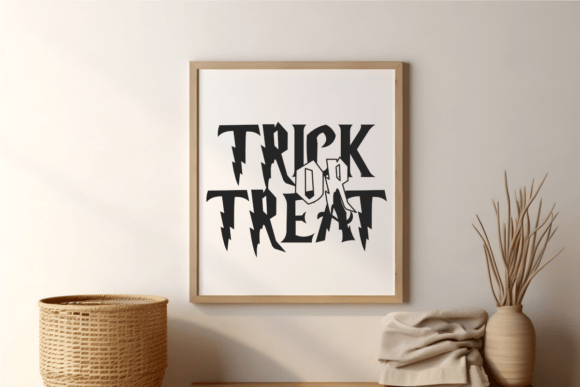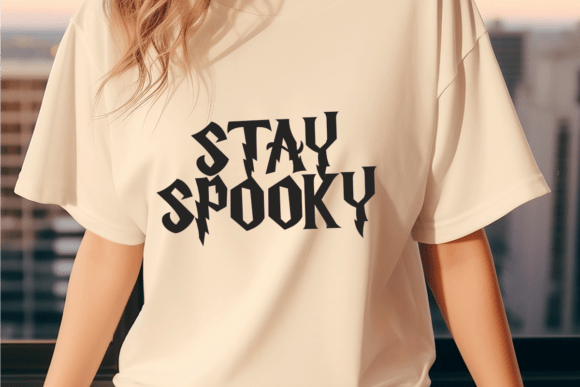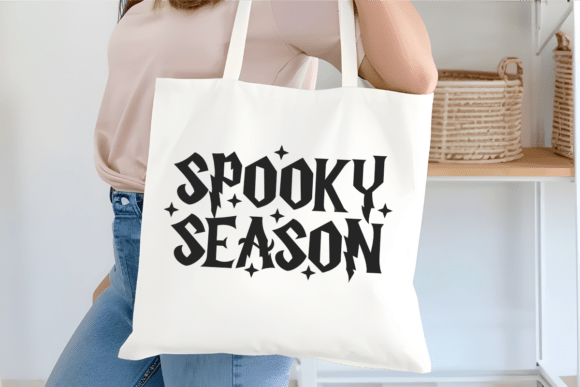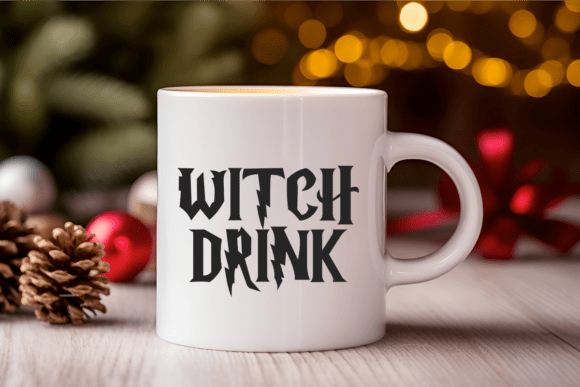
Harry Poster Regular Font: The Ultimate Spooky Halloween Font
Are you looking for a font that captures the essence of Halloween and adds a touch of spookiness to your designs? Look no further than the Harry Poster Regular Font. Inspired by metal band typography and classic horror posters, this font is perfect for designers and crafters who want to create eerie and mystical designs that will leave a lasting impression.
What Makes Harry Poster Unique?
Harry Poster is a unique and bold font that stands out from the rest. Its sharp edges and eerie character give it a distinctive look that is reminiscent of classic horror movies and metal band logos. The font’s design is inspired by the darker side of life, making it perfect for Halloween-themed designs, horror-inspired projects, and dark fantasy branding.
Perfect for Seasonal and Mystical Designs
Harry Poster is ideal for designers and crafters who want to create seasonal and mystical designs that capture the spirit of Halloween. The font’s spooky and eerie character makes it perfect for:
- Halloween party invitations
- Stickers and wall art
- Apparel, hoodies, and print-on-demand products
- Cricut and cutting machine projects
- Labels and logos
- Posters and keychains
Ideal for Dark Fantasy Branding and Horror-Inspired Projects
Harry Poster is not just limited to Halloween-themed designs. The font’s bold and atmospheric look makes it perfect for dark fantasy branding and horror-inspired projects, such as:
- Book covers
- Film titles
- Dark fantasy branding
- Horror-inspired art and designs
Why Choose Harry Poster?
There are many reasons why Harry Poster is the perfect font for designers and crafters. Here are just a few:
- Unique and bold design: Harry Poster has a distinctive look that sets it apart from other fonts.
- Eerie and mystical character: The font’s spooky character makes it perfect for Halloween-themed designs and horror-inspired projects.
- Versatile: Harry Poster can be used for a wide range of projects, from stickers and wall art to book covers and film titles.
Tips for Using Harry Poster
Here are a few tips for using Harry Poster to get the most out of this amazing font:
- Experiment with different colors: Harry Poster looks great in bold and bright colors, as well as more muted and subtle tones.
- Use it with other fonts: Harry Poster pairs well with other fonts, so don’t be afraid to experiment with different combinations.
- Add some texture: Adding texture to your design can help to give it a more eerie and mystical feel.